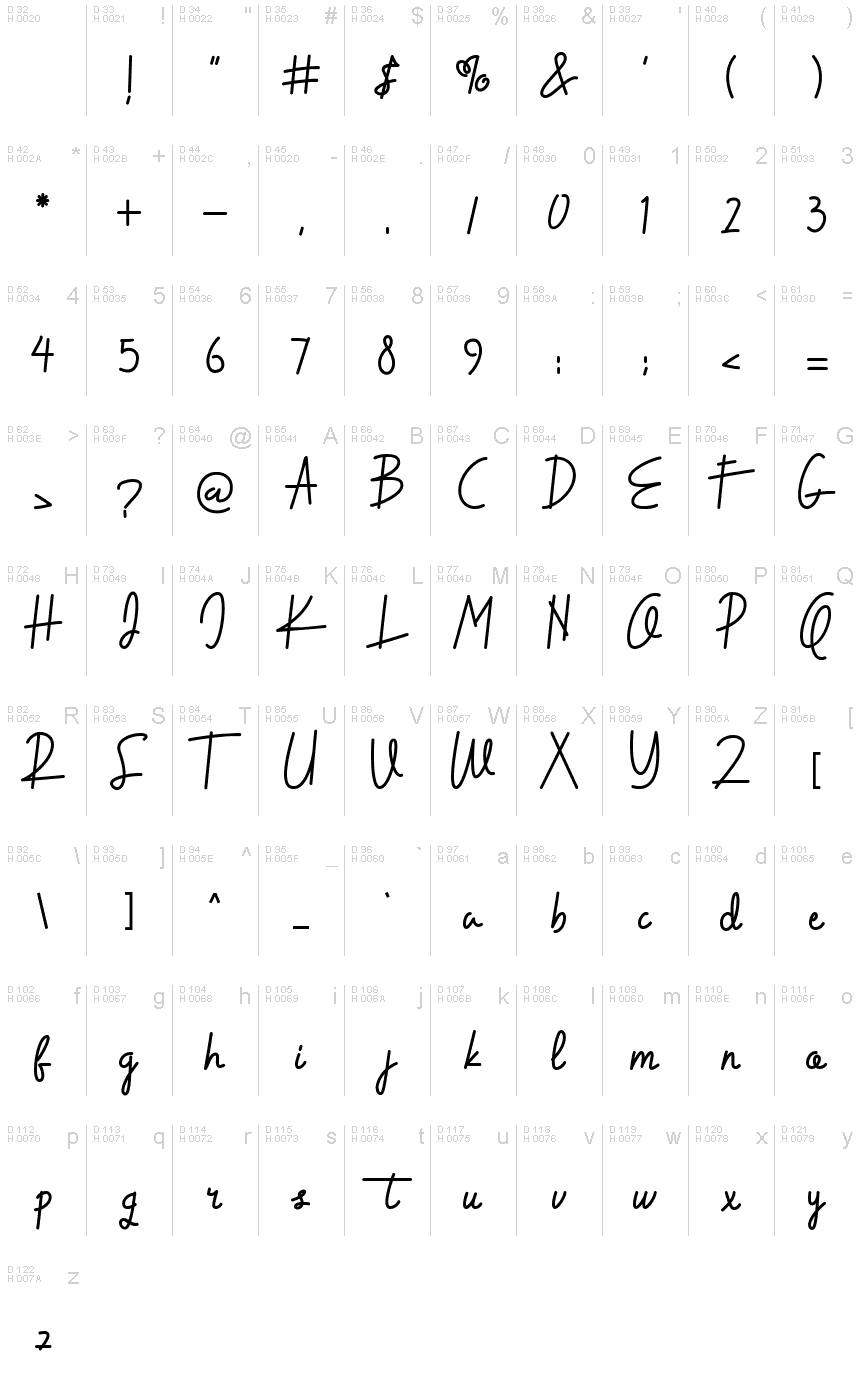
Serendipity
Serendipity is a Hand Lettering - it's an amazing character.otf and ttf- standard uppercase, lowercase, numbers, punctuation, ligatures and multilingual support
This font is handmade. The font is work specialty is good for product design like a Template/mockup, Megazine, Post, T-shirt, Quote, event or you can use for your logo design, typography design, etc. This product is inspirational for your creative design.